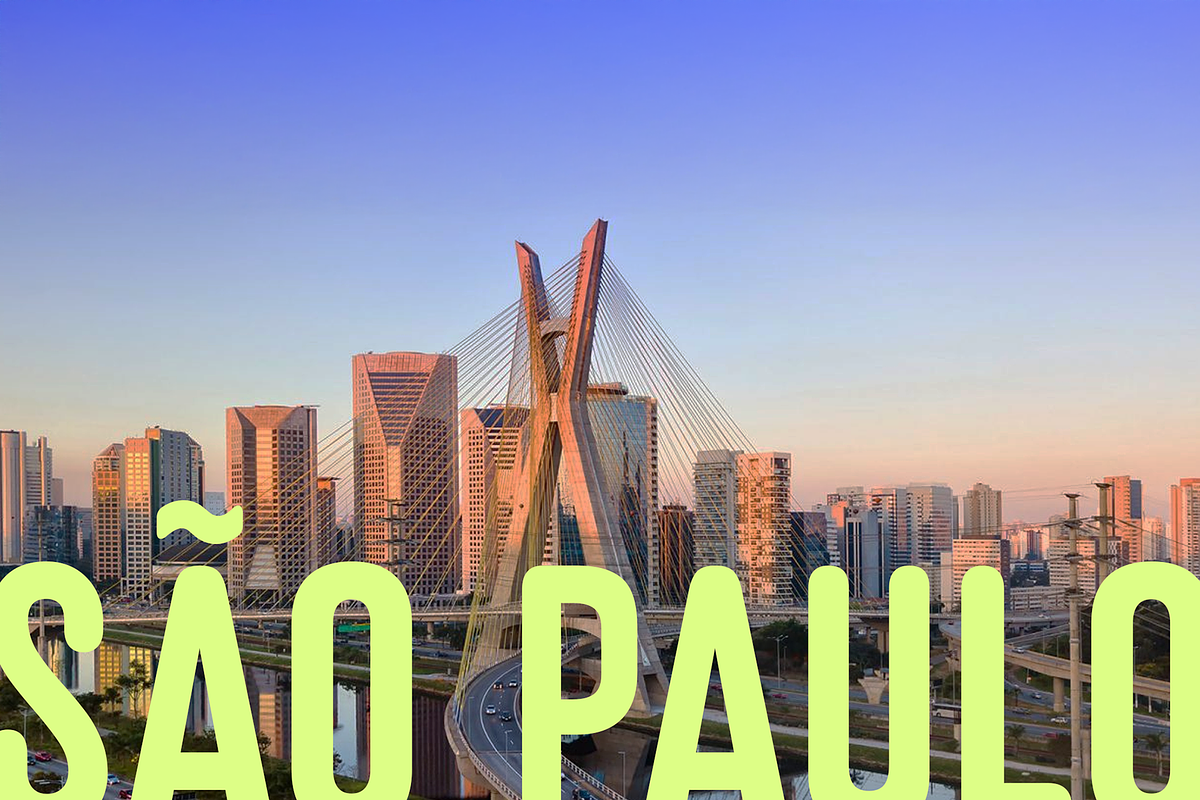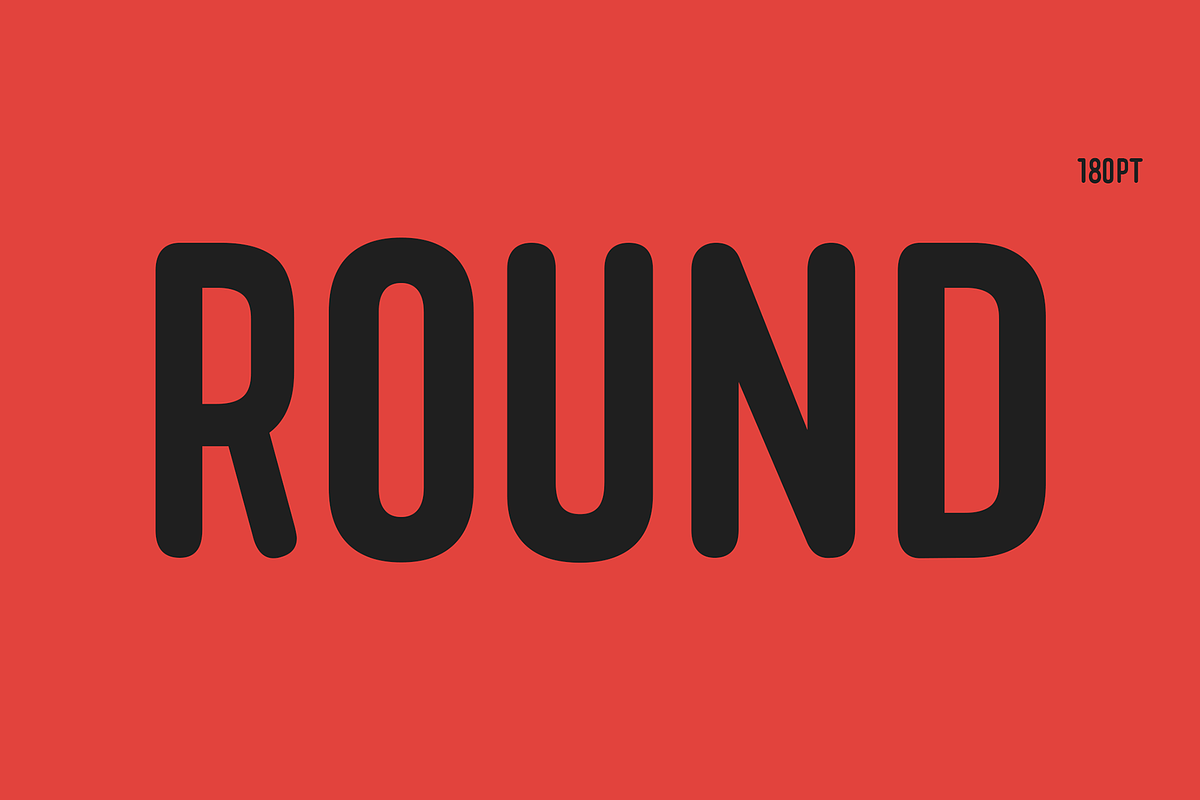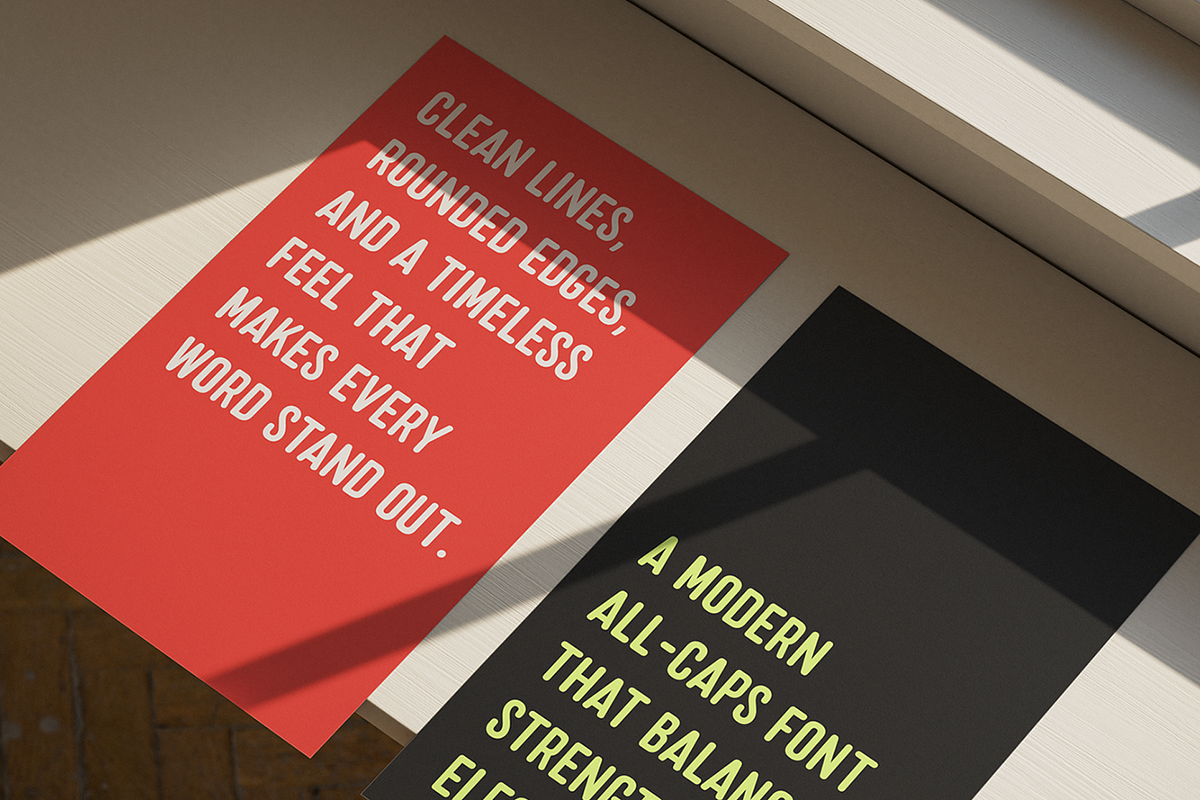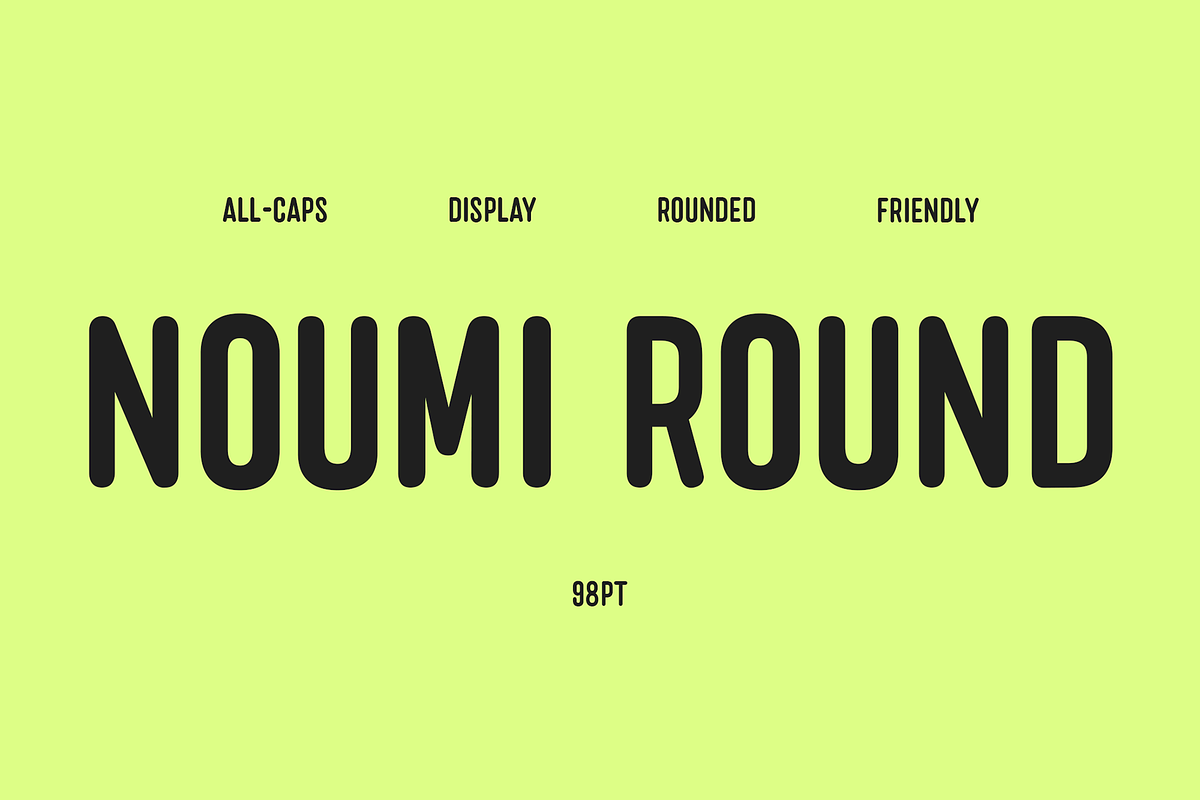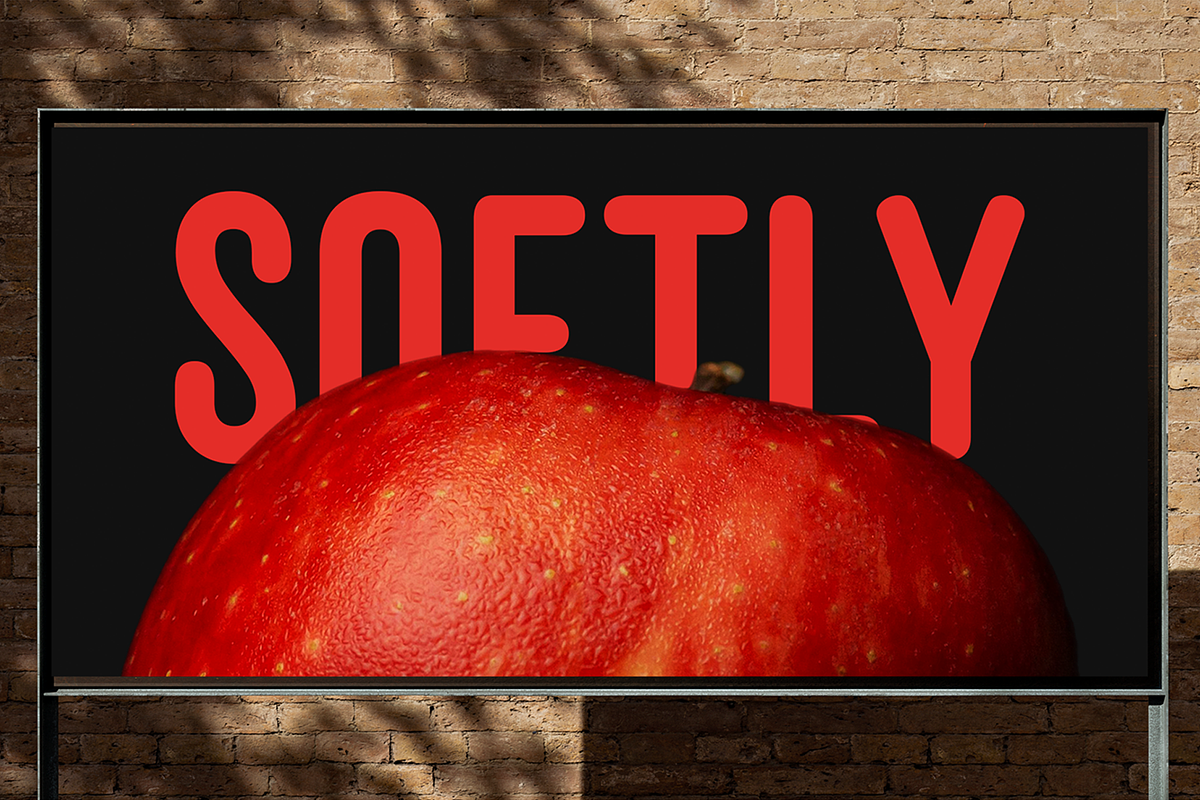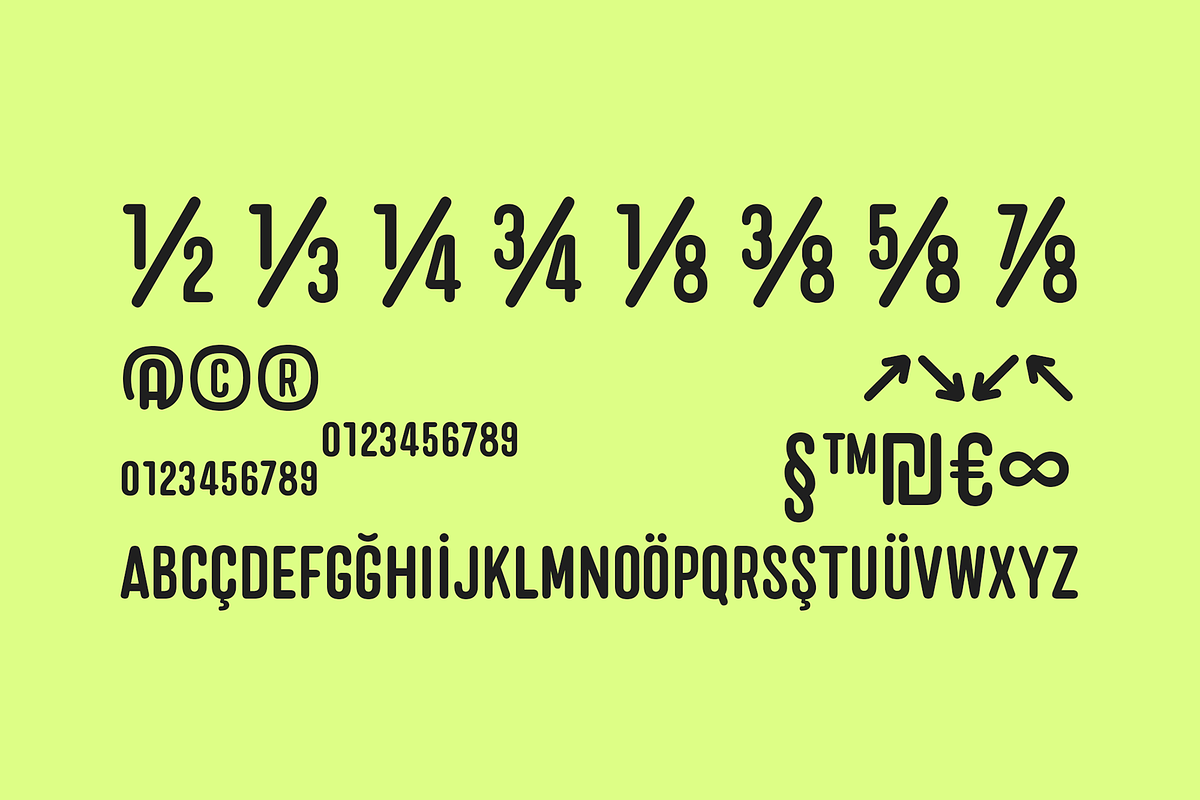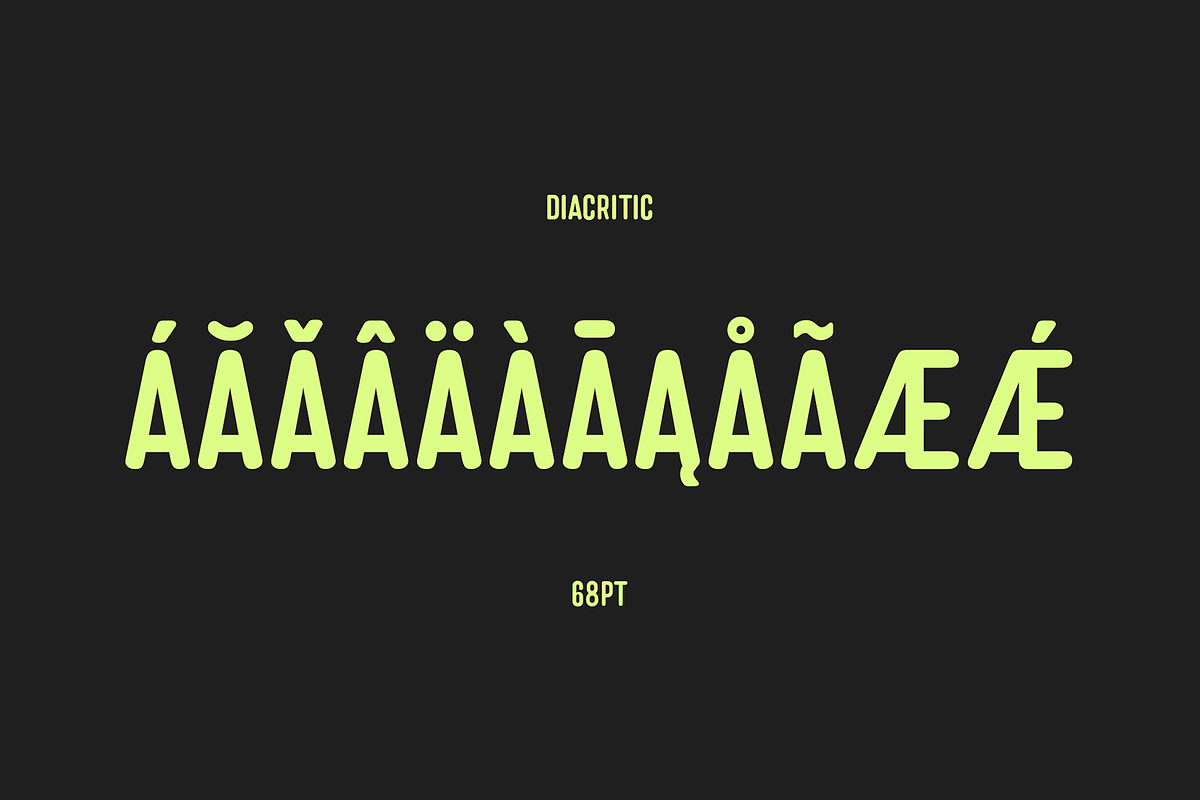
Noumi Round - Bold Display Font
Noumi Round is a high-impact, all-caps sans serif designed for creators who need to speak loudly but stay approachable. Its condensed structure makes it a space-saving powerhouse for tight headlines, while the meticulously rounded corners soften its industrial strength.
Whether you’re crafting a high-tech logo, minimalist packaging, or a standout social media campaign, Noumi provides a balanced, geometric clarity that works flawlessly across print and digital. Give your projects a confident, contemporary voice that refuses to be ignored.